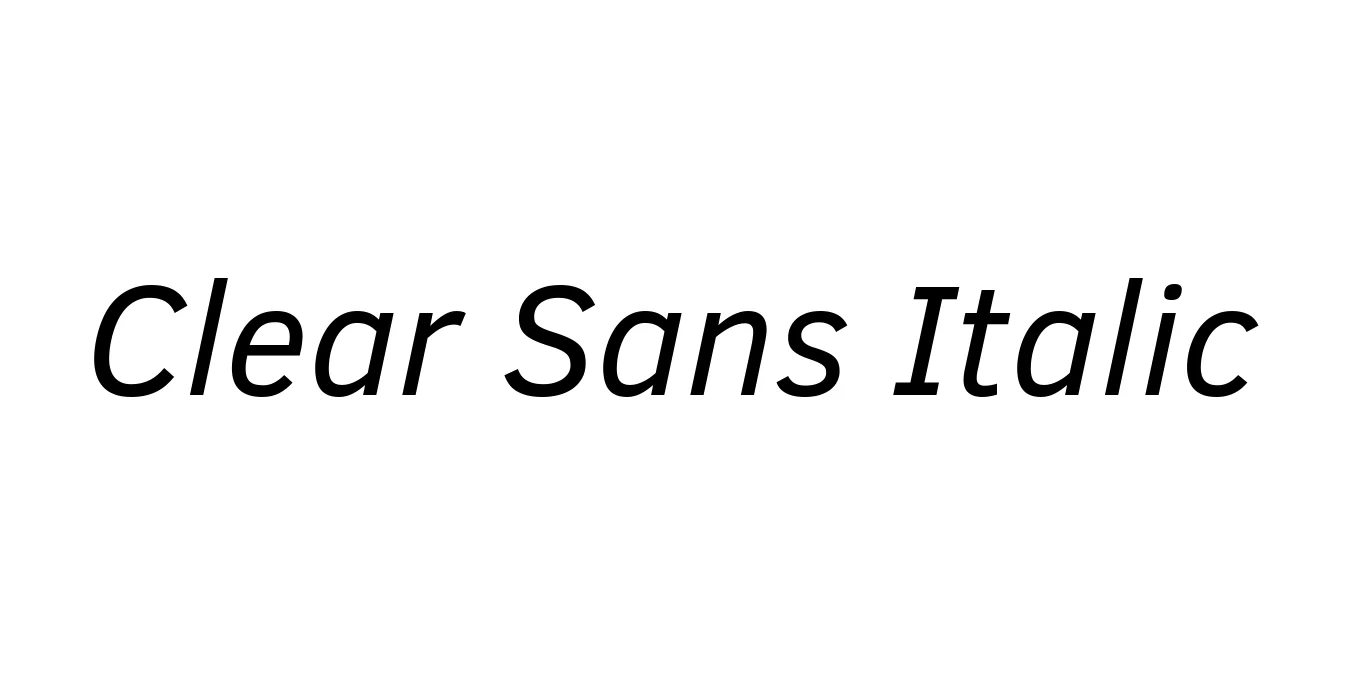
Clear Sans Italic
Designed by Intel (Daniel Ratighan)
Clear Sans Italic is part of the Clear Sans family, a versatile humanist sans-serif typeface designed by Intel and Monotype's Daniel Ratighan. Released in 2013, it was specifically engineered to improve on-screen readability across a variety of digital platforms. The italic variant provides a subtle yet distinct emphasis, maintaining the family's core focus on clarity and character distinction, which makes it particularly effective for user interfaces and mobile environments.
The font was developed under the Intel Open Source Technology Center and is released under the Apache License 2.0. This allows for broad use in both open-source and commercial projects. It features wide apertures and distinct letterforms to minimize ambiguity, supporting a vast range of characters including Latin, Cyrillic, and Greek alphabets, making it a truly global solution for modern web and application design.
Clear Sans Italic Best Uses
Highly effective for labels, buttons, and menu items in software applications.
Optimized for legibility on small screens and high-resolution mobile displays.
Great for body text and emphasized snippets in technical blogs and articles.
Provides a clean, professional look for modern business documentation and digital reports.